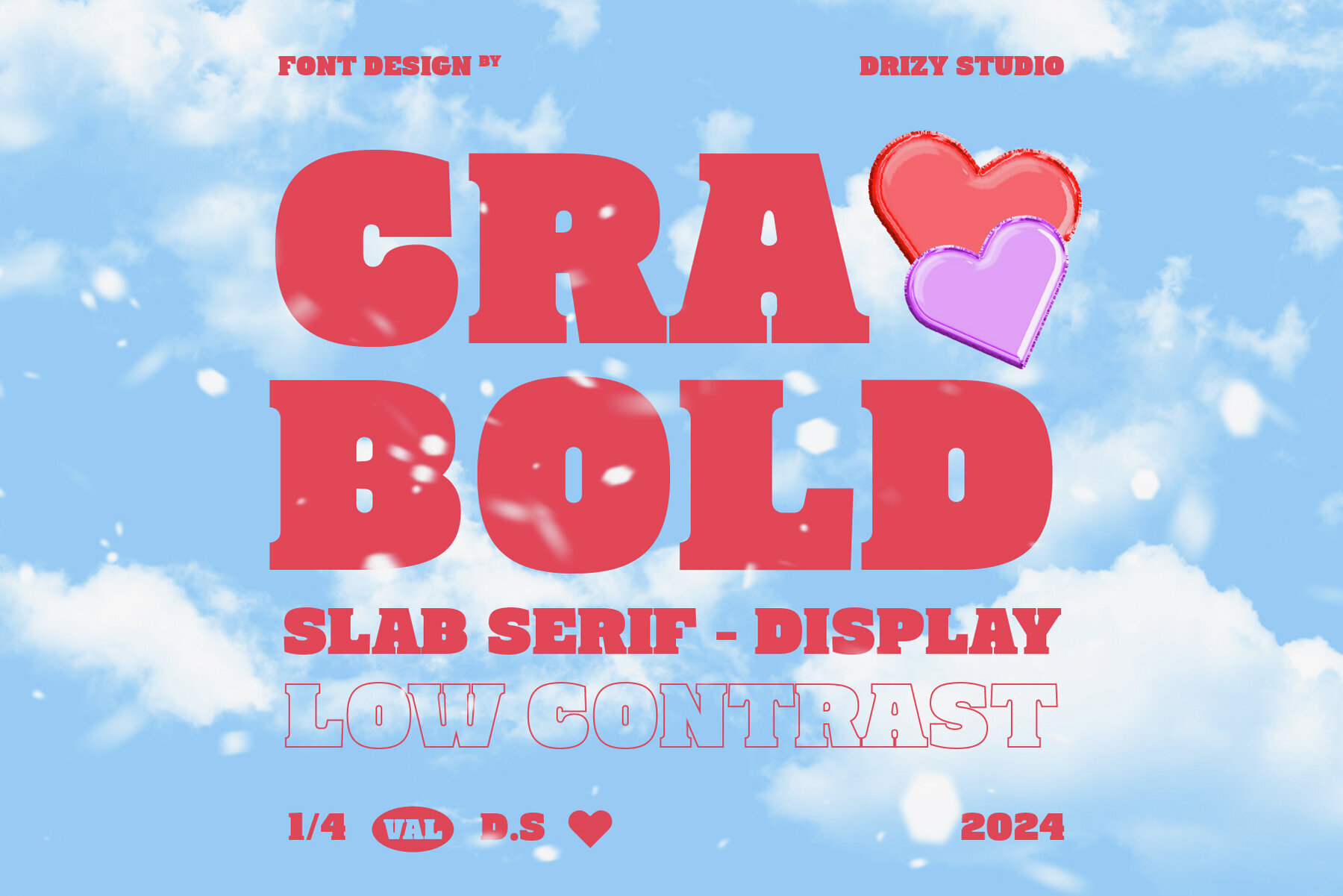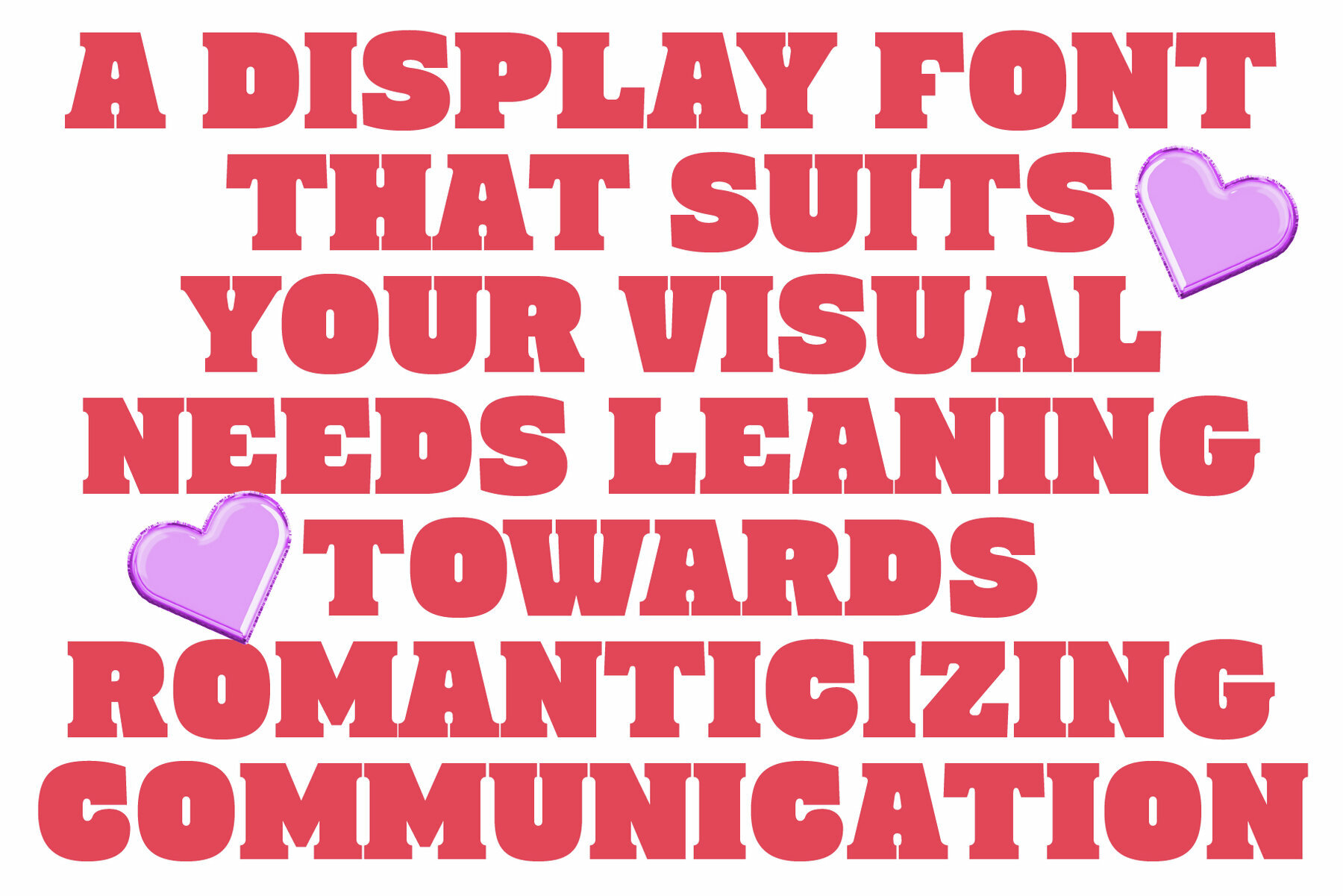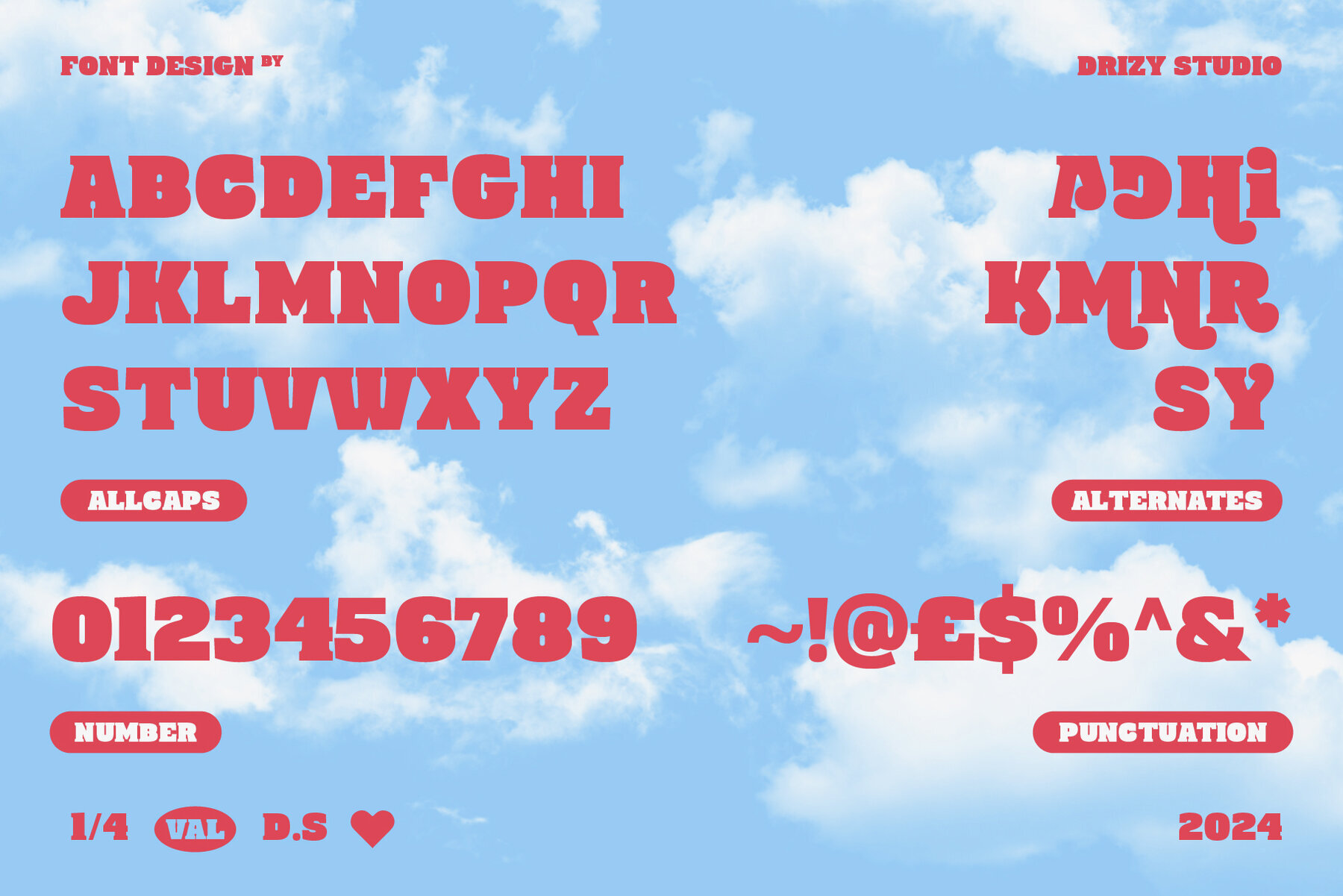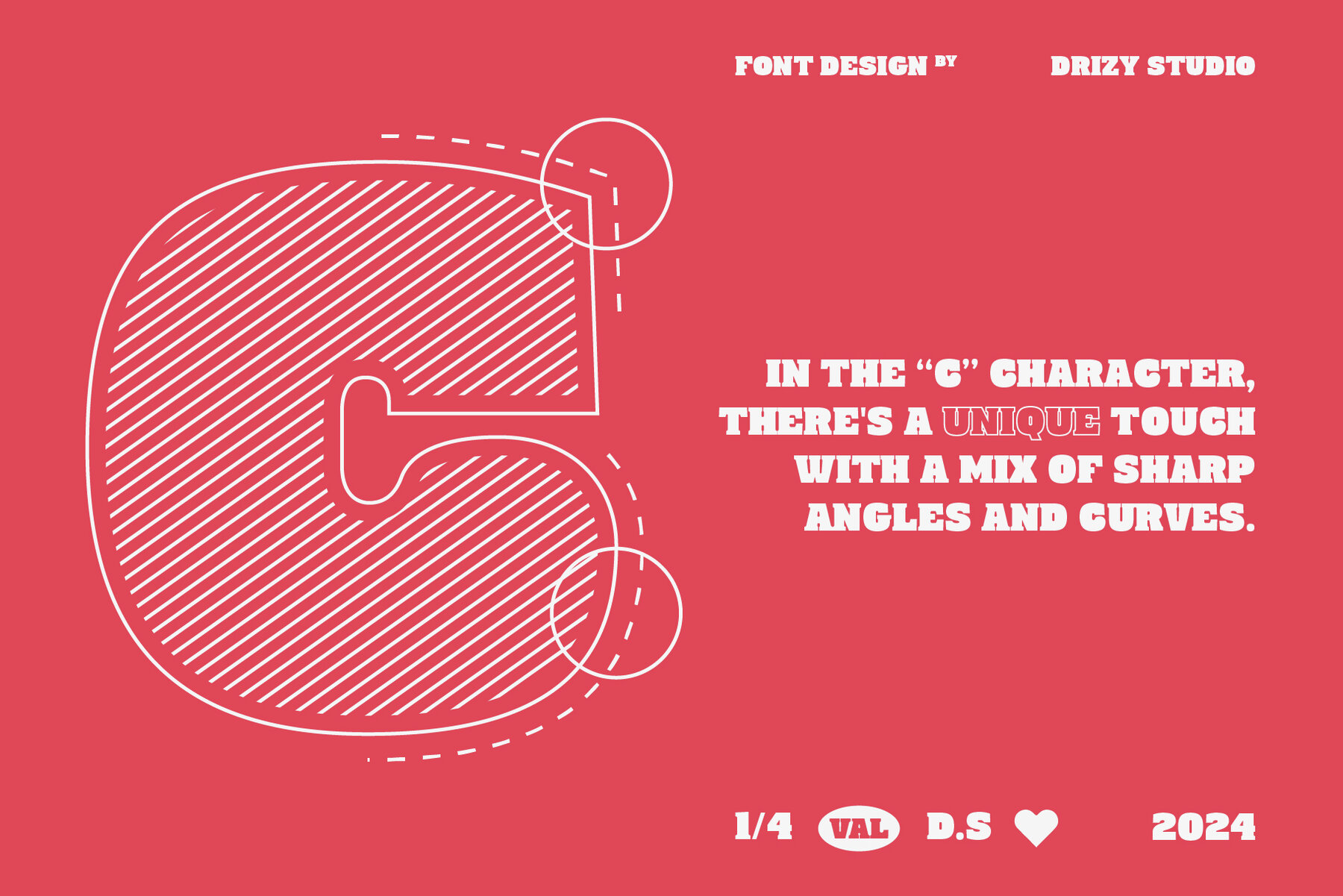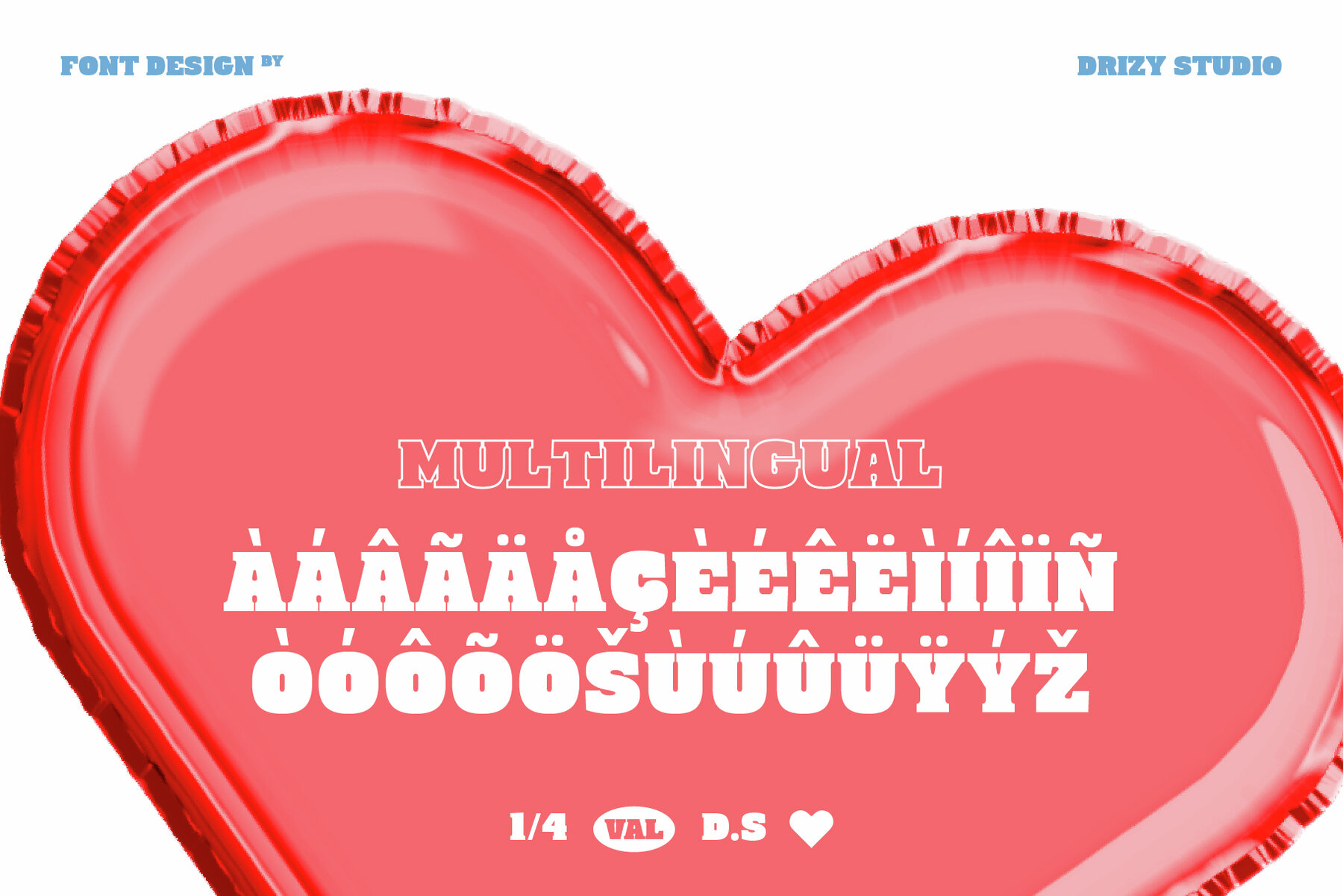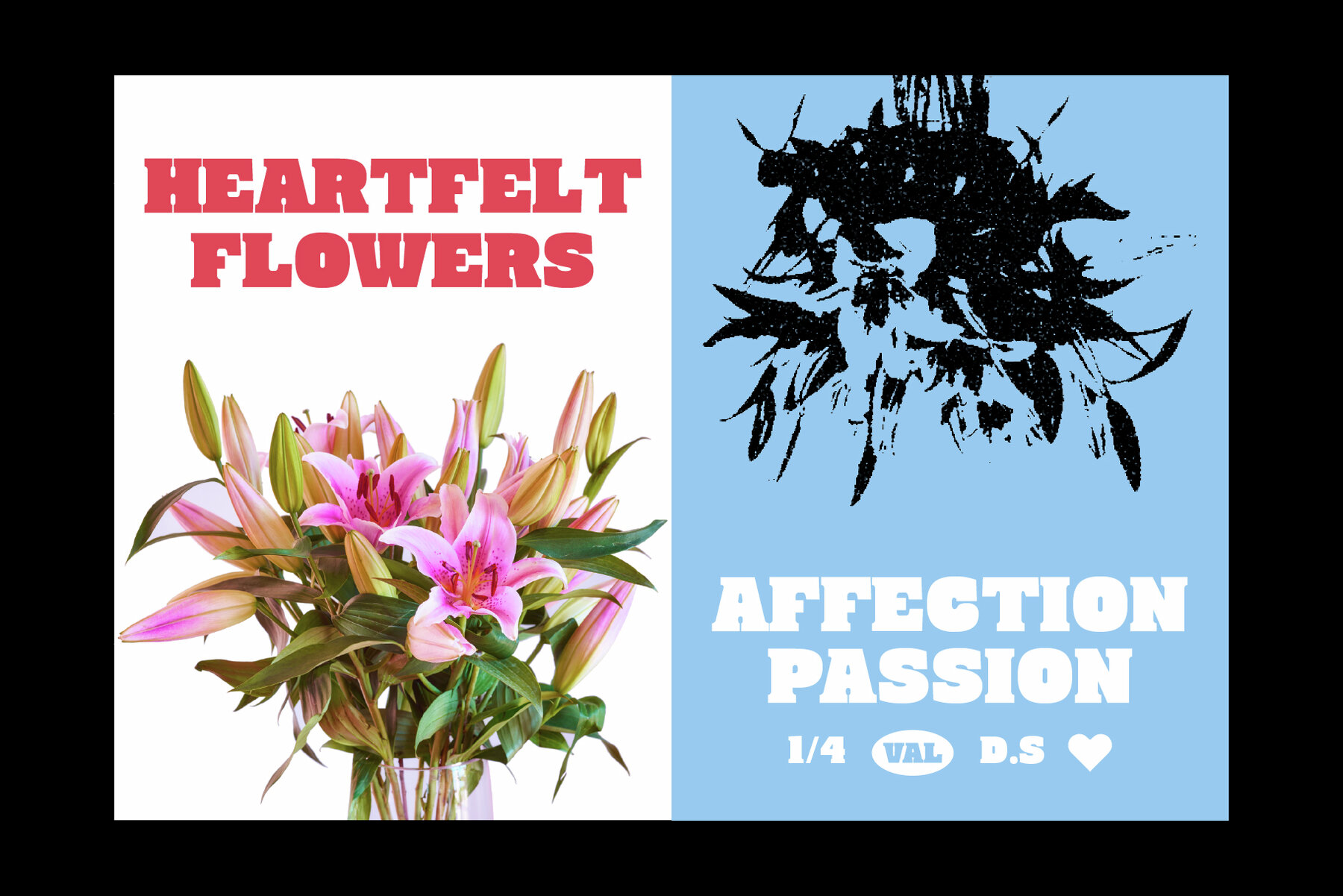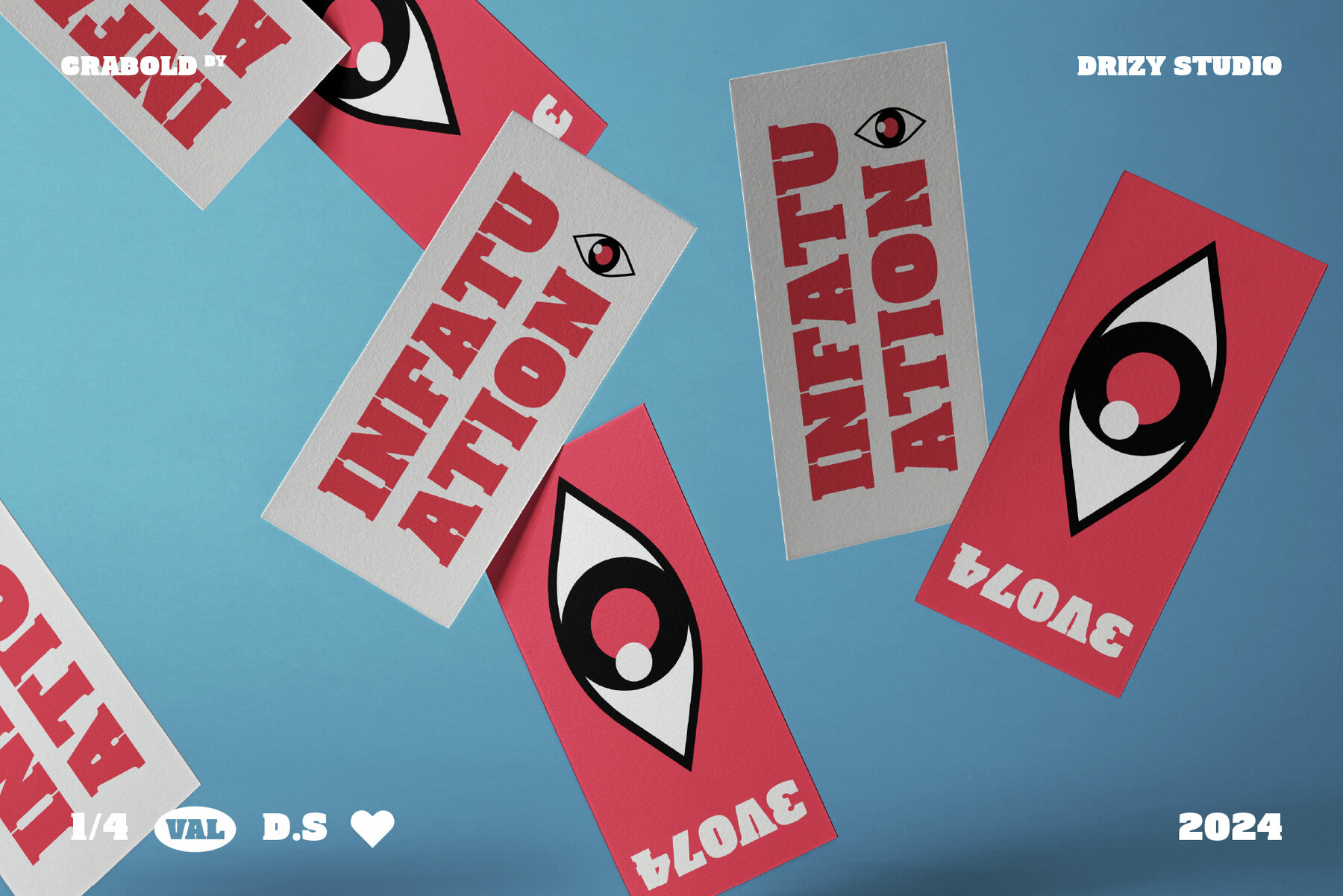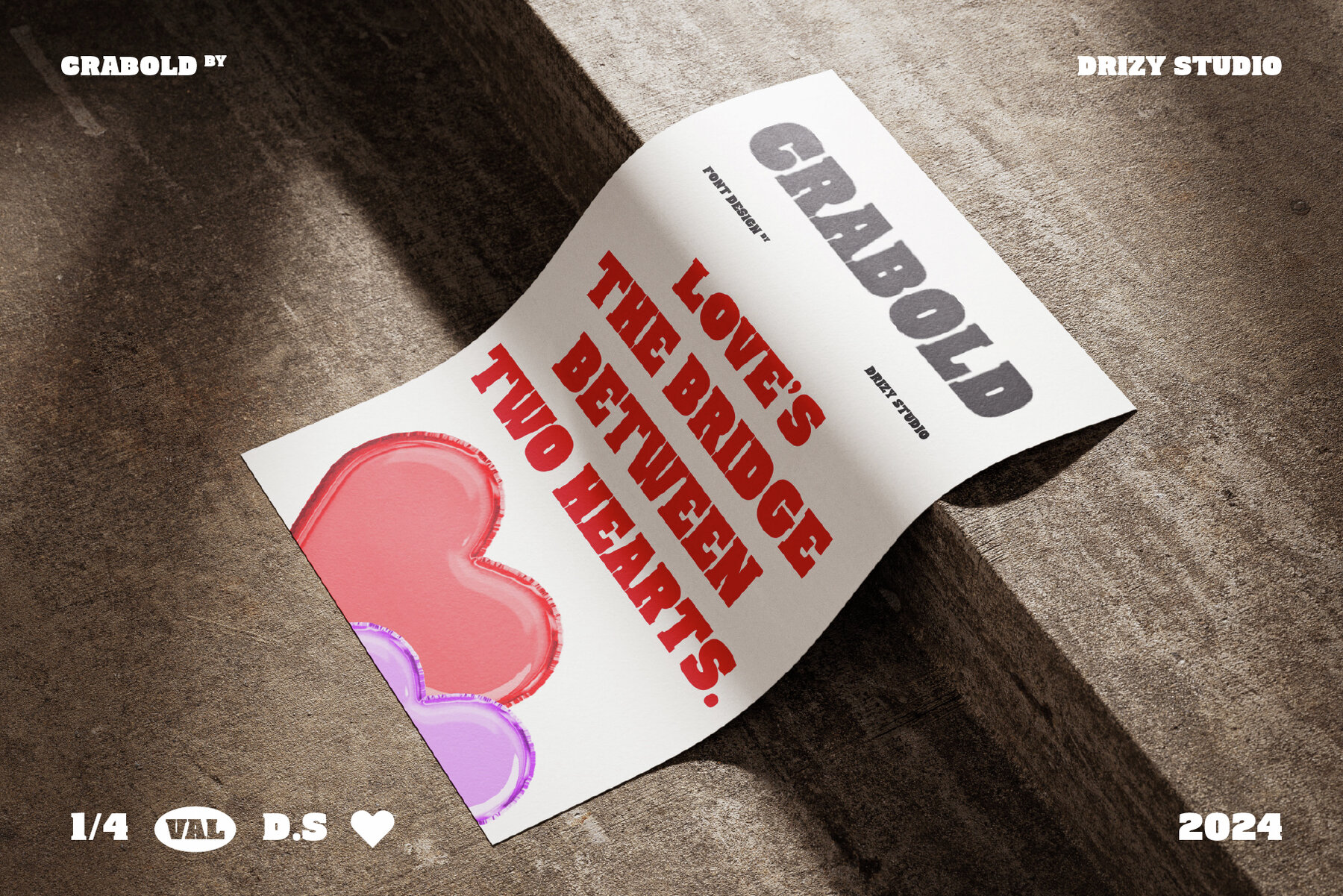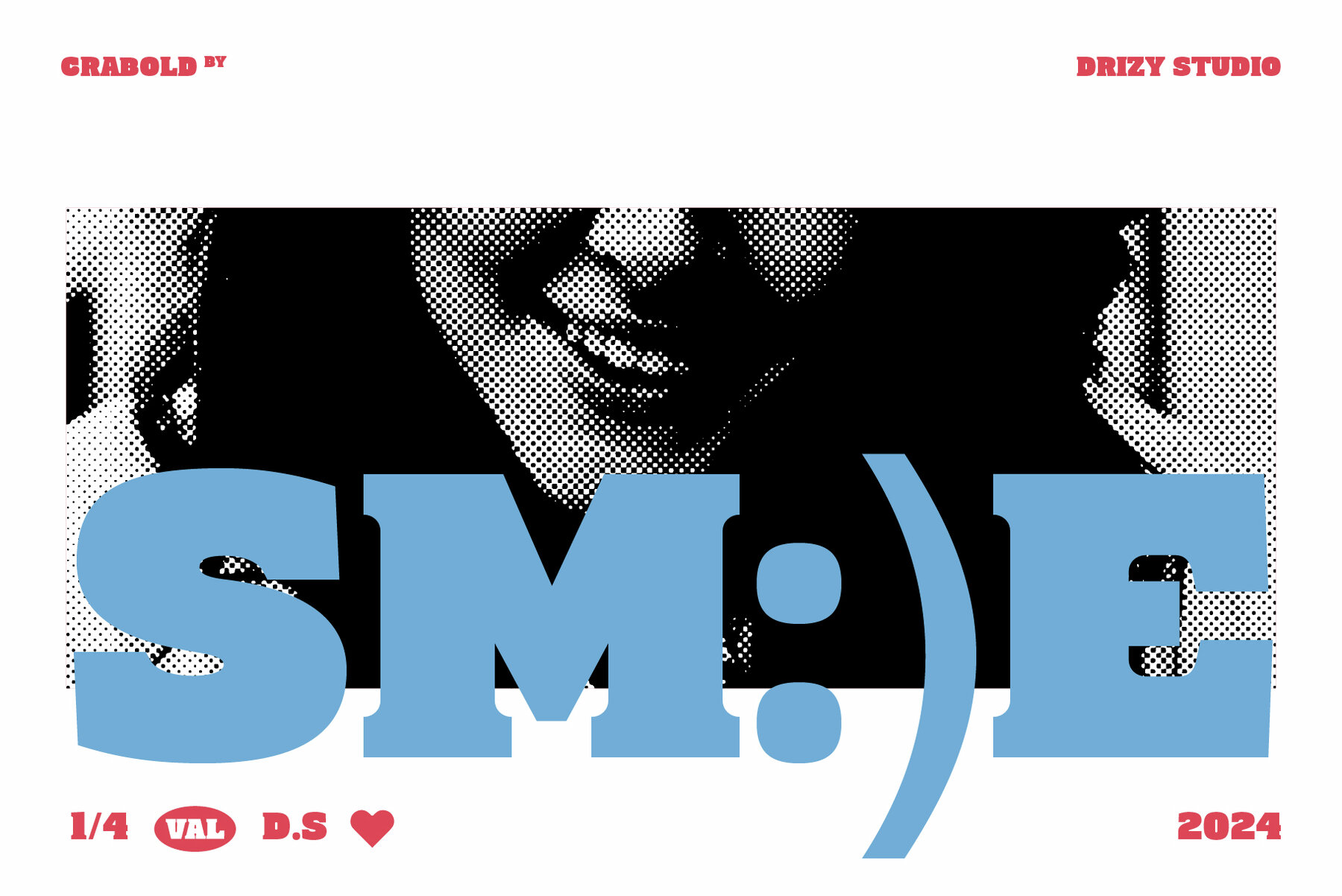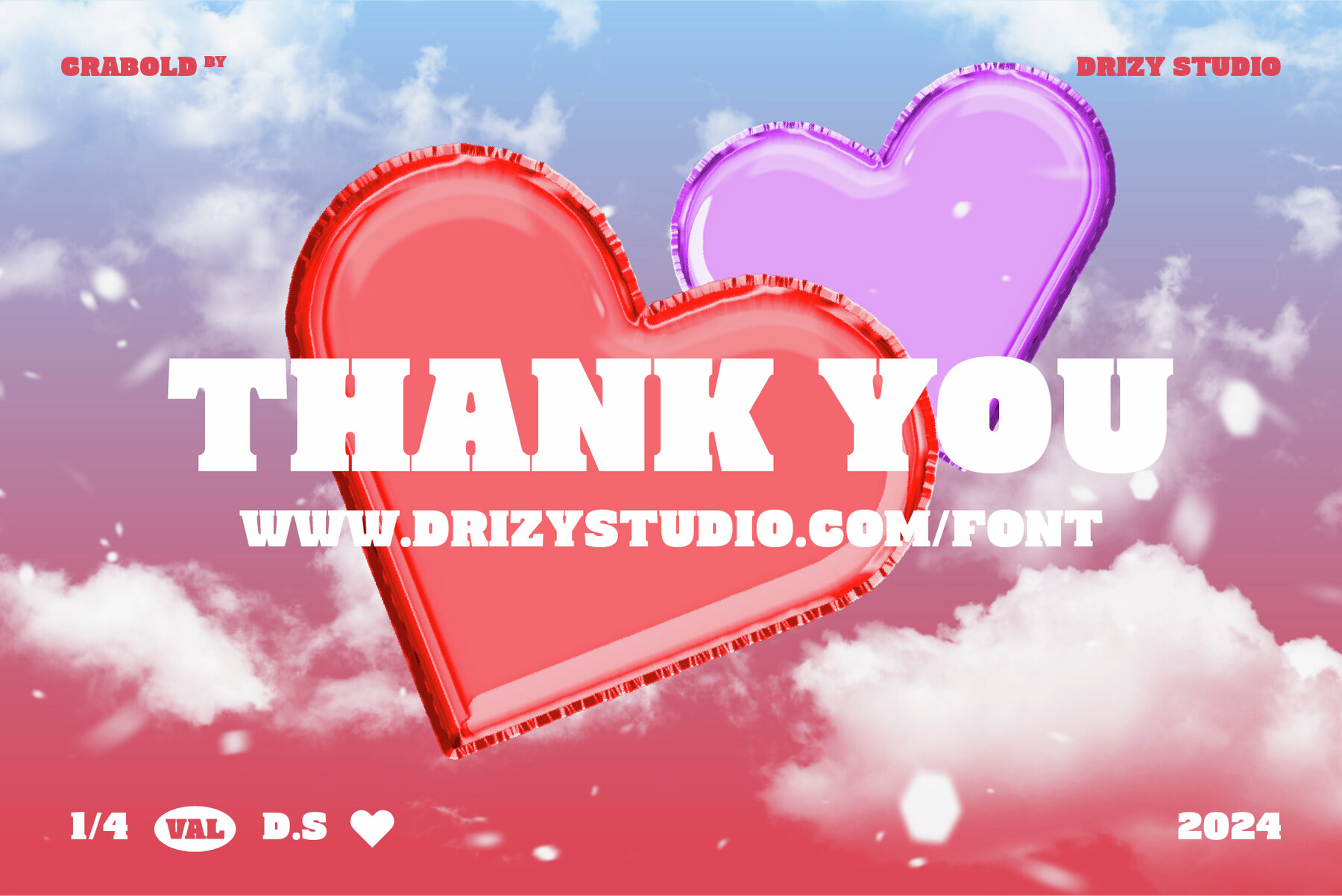
Crabold Font
Crabold Regular
This bold sans-serif stencil font is perfect for projects that require a strong and commanding presence. Its heavy, geometric forms and industrial aesthetic make it ideal for use in military-themed designs, logos, headlines, posters, and branding materials. The clean lines ensure it remains modern and impactful across a variety of digital and print mediums.